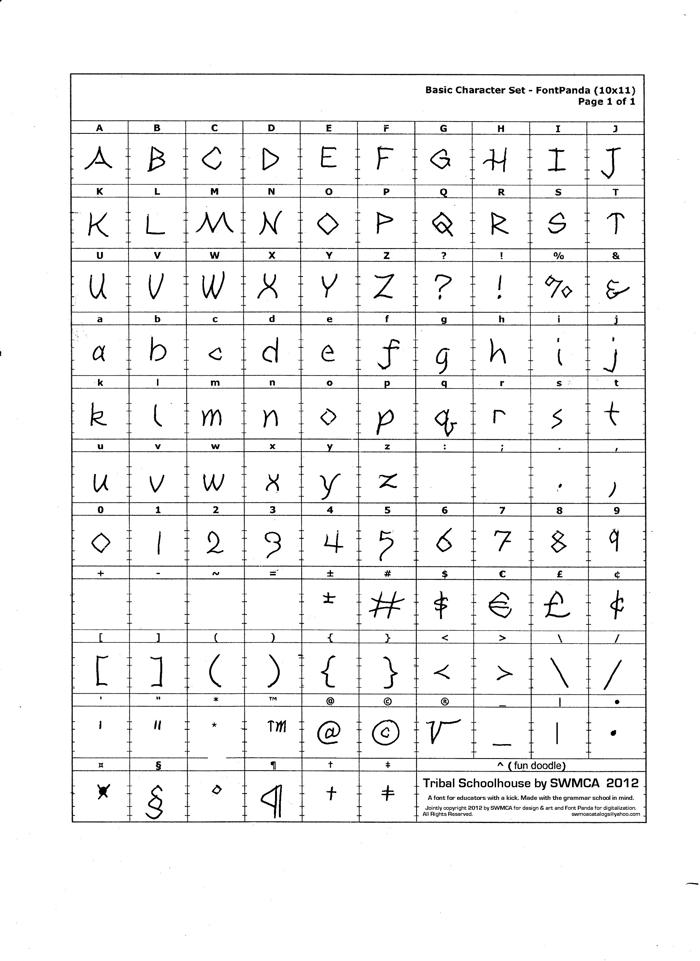
Tribal Schoolhouse Font
If you liked Tribal and you're a teacher, you'll probably love Tribal Schoolhouse...maybe even if you don't teach. For a full history of the font, check out "Tribal" by SWMCA. This is the first of a series of "schoolhouse" fonts to be introduced. The schoolhouse line is SWMCA fonts modified to how the alphabet is taught in elementary schools (USA) but designed to keep many of the characteristics of the original font. Any or all of the following characters will be subject to modification from the original in manuscript schoolhouse fonts: A,E,F,G,I,J,M.N,T,U,W,Y, a,e,f,g,q,r,t,u,w,y,z,3,4,6, and 9. Additional ones may also be modified if needed. Teachers work hard and often have to buy materials and supplies from their own measley paychecks. They really aren't paid or respected enough, but care for our kids so much that many would risk their own life to protect the kids as illustrated in the Sandy Hook massacre. To them and other educators our there this is the first of the "schoolhouse" fonts. Schoolhouse (at least those produced by SWMCA) fonts are always freeware, even for commercial usage (so they can be used freely in both public and private schools). As for the Tribal font itself, a "Tribal 2" is coming. It's like the original but addresses spacing, kerning, and punctuation problems with the original. The schoolhouse version to SWMCA's knowledge does not have these issues. No promises, but a cursive Tribal is also planned if the bugs can be worked out. IMPORTANT NOTE: The square root sign replaces the registered trademark symbol on schoolhouse fonts.
Very nice! The only thing wrong I can find with it is that you can't type certain kinds of emoji (kirbies) with it. Like (=^-^=) because of SHIFT+6 being the copyright notice. If you moved that to the Private Use Area and brought the spacing modifier circumflex to the Basic Latin set it would be perfect!